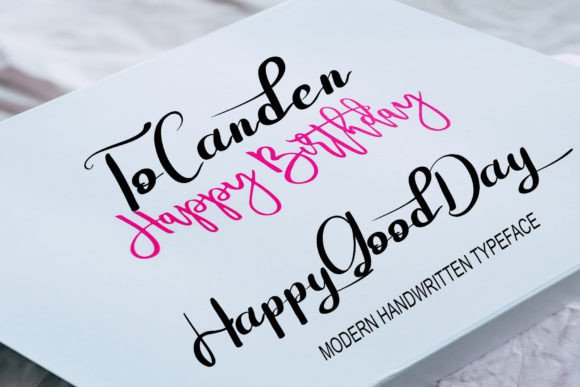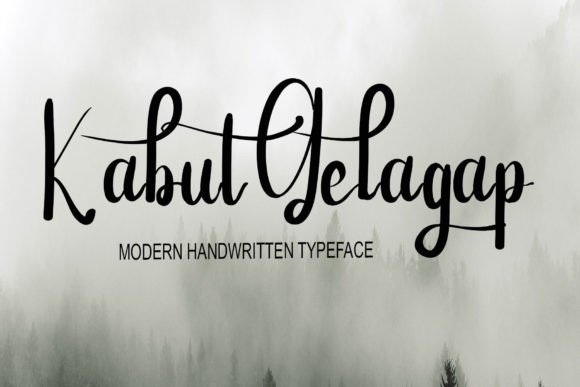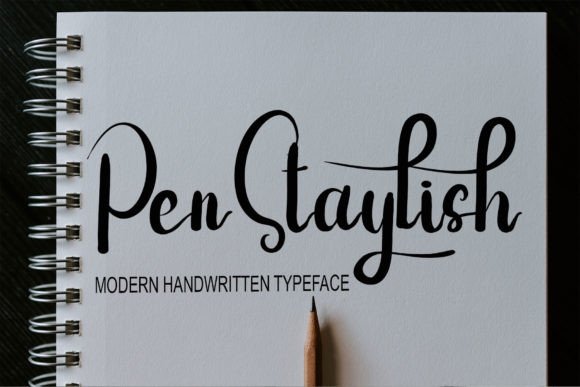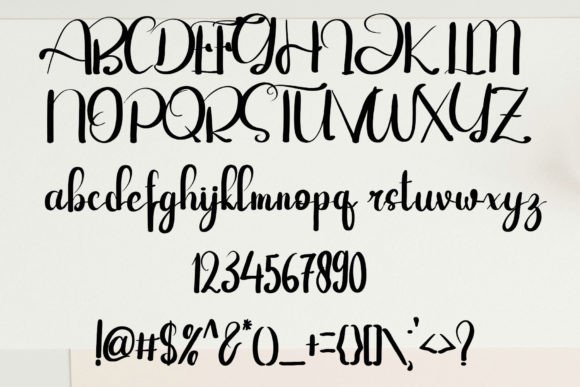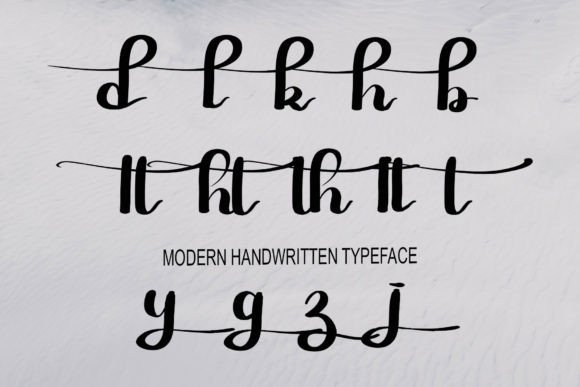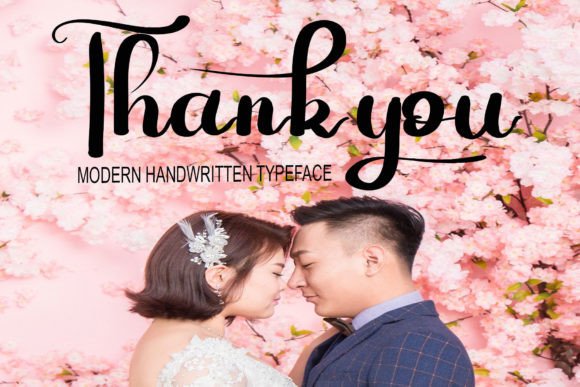
Ayink Font: A Handwritten Tablet Font for Modern Designs
In the world of typography, handwritten fonts have gained immense popularity for their unique and personal touch. One such font that has caught the attention of designers and crafters is Ayink Font. Created using a tablet, Ayink is a beautifully crafted handwritten font that can elevate your designs, from websites and wedding invitations to business cards, signatures, and advertisements.
The Origin of Ayink Font
Ayink Font is a product of modern technology and traditional craftsmanship. The font was created by hand using a tablet, which gives it a distinct, organic feel. The process of creating a font by hand using a tablet involves a lot of skill and precision. The creator of Ayink Font has managed to strike a perfect balance between simplicity and style, making it a versatile font for various design applications.
Characteristics of Ayink Font
At first glance, Ayink Font may seem simple, but it’s precisely this simplicity that makes it stand out. The font has a clean and elegant look, with each letter carefully crafted to ensure readability and aesthetic appeal. Here are some key characteristics of Ayink Font:
- Handwritten Style: Ayink Font boasts a genuine handwritten look, making it perfect for designs that require a personal touch.
- Tablet-Created: The use of a tablet in creating the font gives it a unique texture and feel, setting it apart from traditional typefaces.
- Versatility: Whether you’re designing for digital platforms or print media, Ayink Font adapts seamlessly, ensuring your designs look great everywhere.
- Cool and Stylish: Despite its simplicity, Ayink Font exudes a cool, stylish vibe that’s sure to enhance your designs.
Uses of Ayink Font
The versatility of Ayink Font makes it suitable for a wide range of design projects. Here are some popular uses of this beautiful font:
- Websites: Use Ayink Font for website headings, quotes, or any element that requires a personal and inviting touch.
- Wedding Invitations: Add a touch of elegance and romance to your wedding invitations with Ayink Font.
- Business Cards: Stand out in the professional world with stylish business cards featuring Ayink Font.
- Signatures: Elevate your email signatures or digital documents with a personalized touch using Ayink Font.
- Advertisements: Whether it’s product advertisements or promotional materials, Ayink Font can help you create eye-catching and memorable ads.
Tips for Using Ayink Font Effectively
To make the most of Ayink Font, consider the following tips:
- Pair with Other Fonts: Combine Ayink Font with sans-serif fonts for a modern look or with serif fonts for a classic feel.
- Adjust Font Sizes: Use varying font sizes to create visual hierarchy and emphasize key points in your design.
- Play with Colors: Experiment with different colors to match your brand’s palette or to evoke specific emotions.
- Use for Headings and Quotes: Ayink Font shines in headings and quotes, adding a personal touch to your content.
Ayink Font is a beautiful, handwritten tablet font that brings a touch of elegance and personality to any design project. Its simplicity, coupled with its stylish appeal, makes it a versatile choice for designers and crafters. Whether you’re creating digital content, print materials, or promotional items, Ayink Font is sure to enhance your designs and leave a lasting impression.
So, if you’re looking for a font that combines the warmth of handwritten text with the polish of professional design, Ayink Font is an excellent choice. Explore its creative possibilities and elevate your designs to new heights.